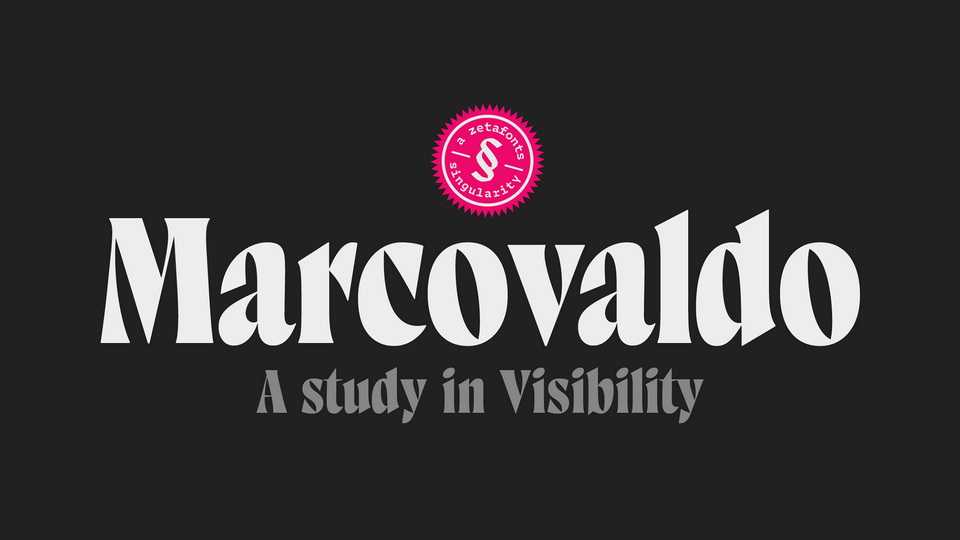
Download Marcovaldo font, a heavy condensed wedge serif, optimized for display design. The high contrast and rich texture of the old style letterforms marry digital aesthetics in a Marcovaldo typeface that is at the same time impactful and refined.
Designer: Zetafonts